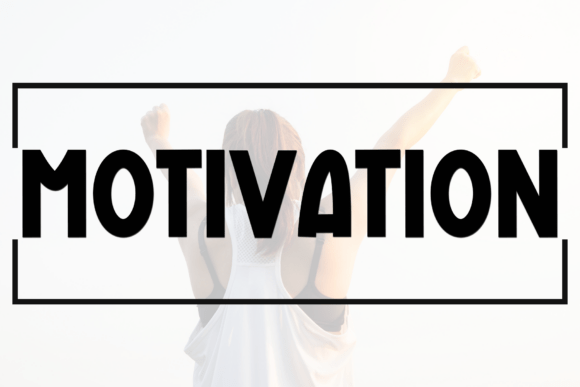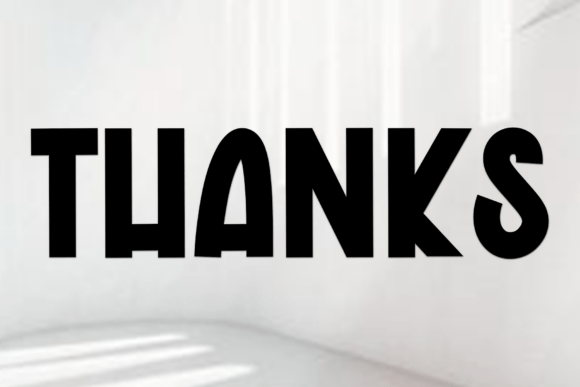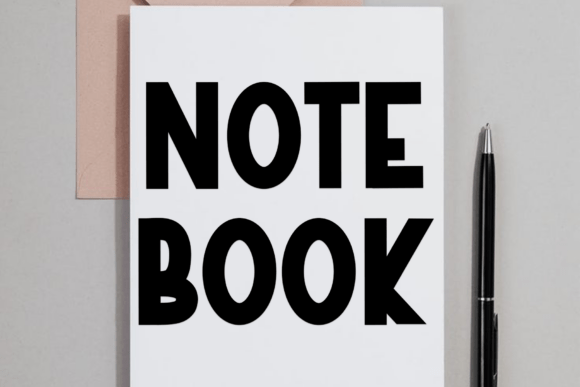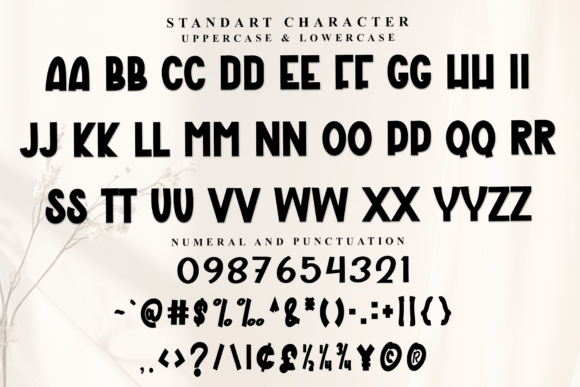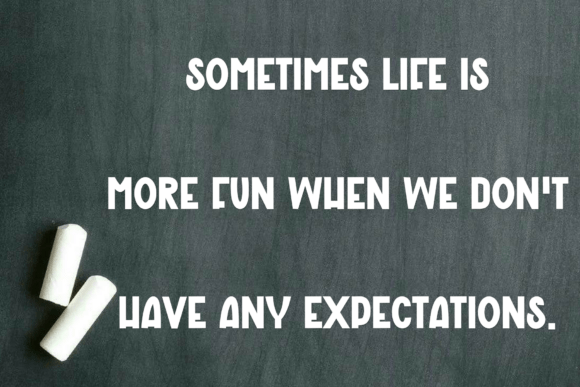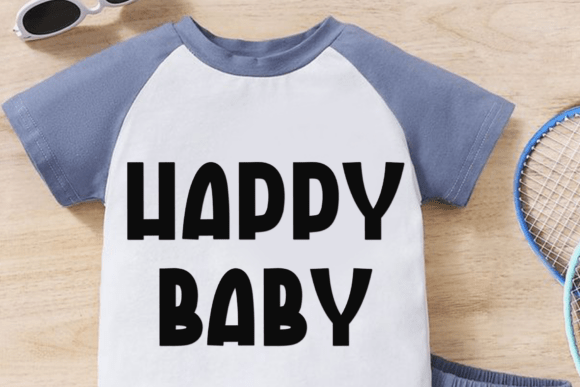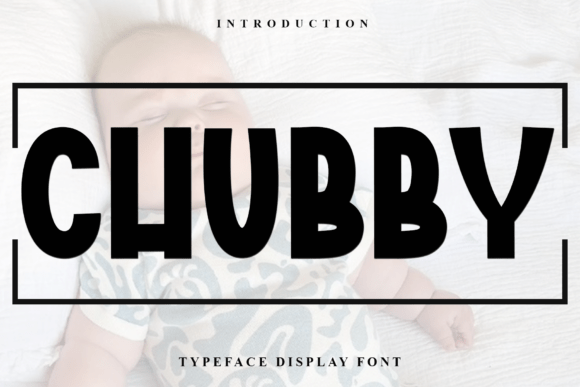
Discover the Charm of Chubby Font: Elevate Your Designs with a Unique Touch
In the world of typography, fonts play a crucial role in conveying messages, expressing emotions, and capturing attention. Among the numerous fonts available, Chubby Font stands out with its distinctive soft and unique touch. Designed to make a statement, Chubby Font is perfect for designers, crafters, and creative professionals looking to add a special character to their projects.
The Unique Features of Chubby Font
Chubby Font boasts a beautiful and eye-catching design that sets it apart from other fonts. Its soft, rounded strokes give it a friendly and approachable feel, making it ideal for a wide range of applications. The font’s distinctive character is not just aesthetically pleasing; it’s also versatile and meaningful, allowing designers to convey their message with clarity and style.
Endless Possibilities for Design Projects
With Chubby Font, the possibilities are endless. Whether you’re working on a logo, brochure, poster, or social media graphics, this font is sure to elevate your designs. Its unique touch adds a creative spin to any project, making it perfect for:
- Social media graphics and ads
A Wide Range of Characters at Your Disposal
Chubby Font offers a wide range of characters, giving designers the flexibility to experiment with different styles and expressions. With various characters at your disposal, you can create unique and captivating designs that resonate with your audience. Whether you’re looking to convey a playful, elegant, or sophisticated tone, Chubby Font has got you covered.
Why Choose Chubby Font?
So, why choose Chubby Font over other fonts? Here are a few compelling reasons:
- Unique and eye-catching design: Chubby Font’s soft and distinctive strokes make it stand out from other fonts.
- Meaningful and special character: Adds a creative spin to any design, making it more engaging and memorable.
- Wide range of characters: Offers flexibility and creative freedom to experiment with different styles and expressions.
In conclusion, Chubby Font is a beautiful and eye-catching font that can elevate your designs and add a unique touch to your creative projects. With its distinctive strokes, versatility, and wide range of characters, it’s perfect for designers, crafters, and creative professionals looking to make a statement. Whether you’re working on a logo, poster, or social media graphics, Chubby Font is sure to enhance your designs and appeal to a wide range of audiences across different artistic and creative fields.